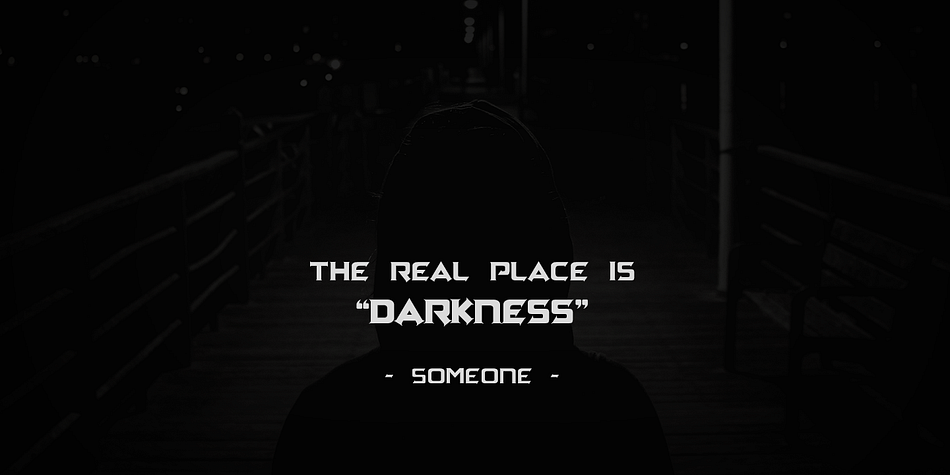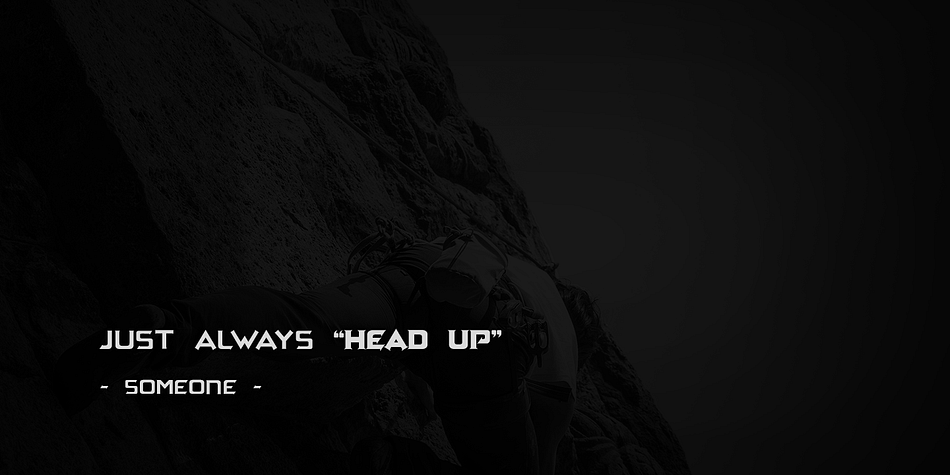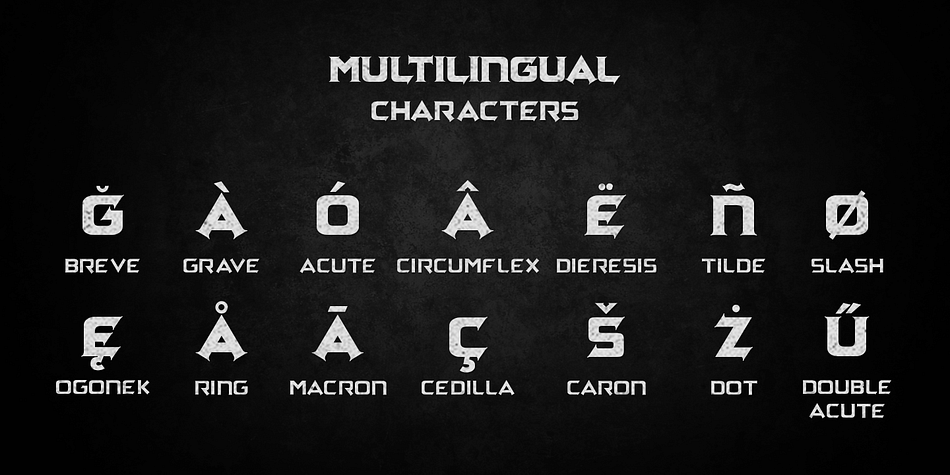
ARCHENA
Archena is a display font family. This typeface has five styles and was published by Tama Putra.
Archena is a display serif typeface with multi-lingual support.
It provides flexibility to enhance your designs. The Debock typeface is a suitable font for creating beautiful things and a variety of creative projects.
- Character set A-Z (uppercase & lowercase)
- Numerals & punctuations
- Accents (multilingual characters)